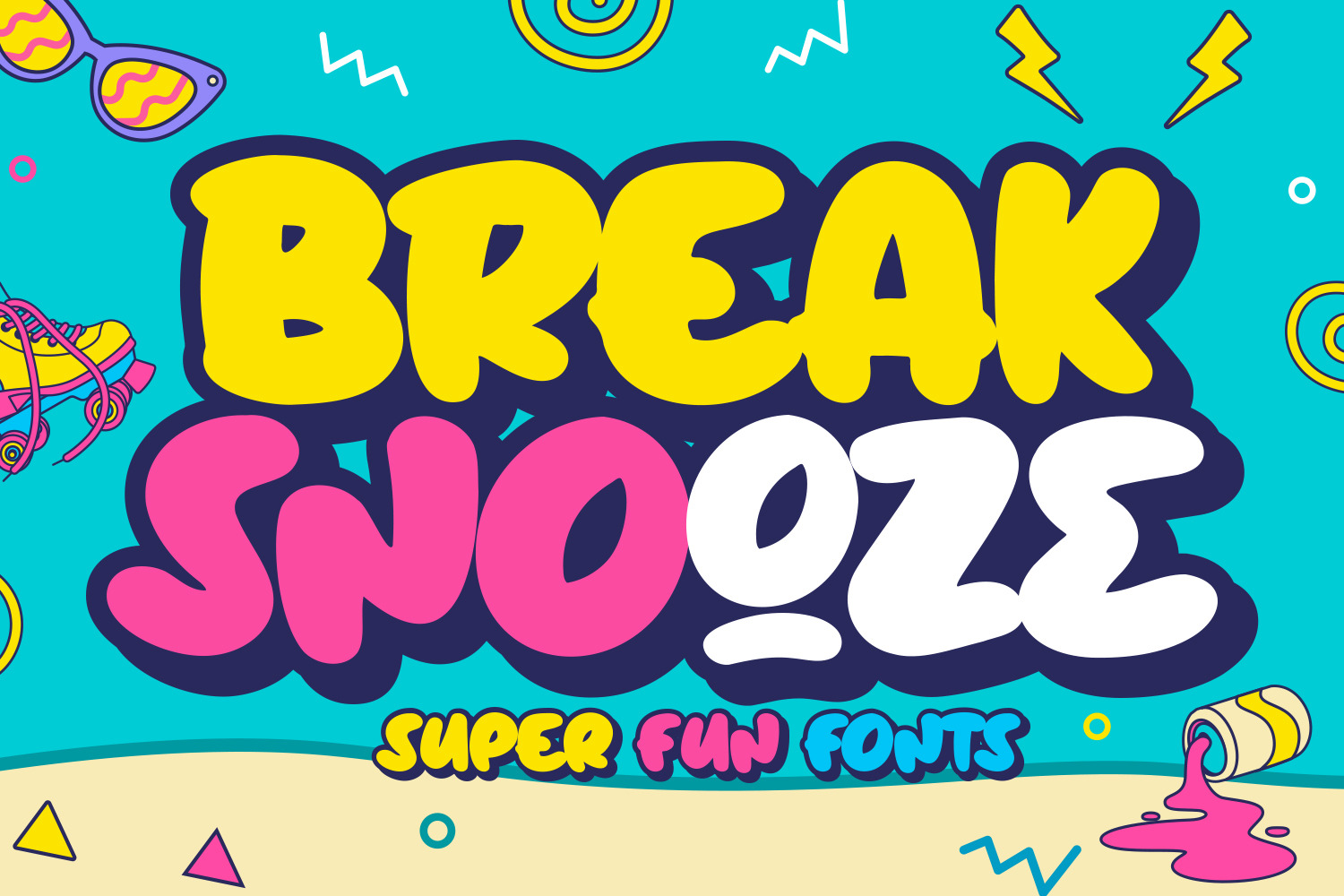
Break Snooze - Layered Fonts
Introducing, Break Snooze fonts.
Break Snooze have a unique shape, rounded and cool.
Comes with 3 style Regular, Outline and Extrude,
then can mix and match with Stylistic Set.
- Stylistic Set 1
- Stylistic Set 2
- European Multilingual